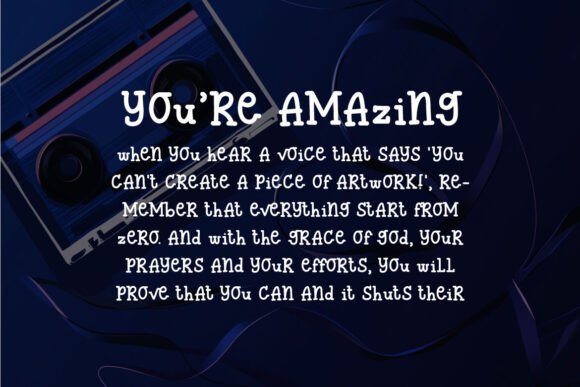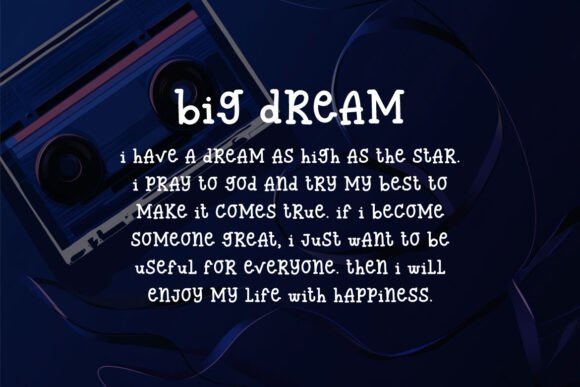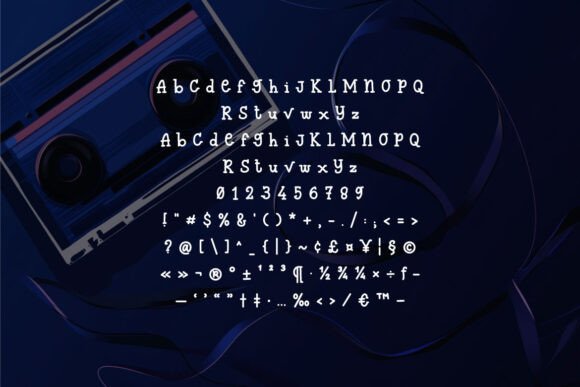
Introduction to Rifz Font
**Rifz** is a vibrant and playful comic font designed to bring a sense of fun and lightheartedness to your creative projects.
With its quirky characters, **Rifz** perfectly captures the cheerful essence of comic styles, making it ideal for children’s books, comic strips, posters, and playful branding Whether you’re creating eye-catching social media posts or designing a fun-filled invitation, **Rifz** adds a touch of whimsy that will leave a lasting impression.
Rifz Font offers exceptional quality and versatility, making it a valuable addition to your design toolkit. Whether you’re creating for personal projects or commercial use, Rifz Font delivers professional results.